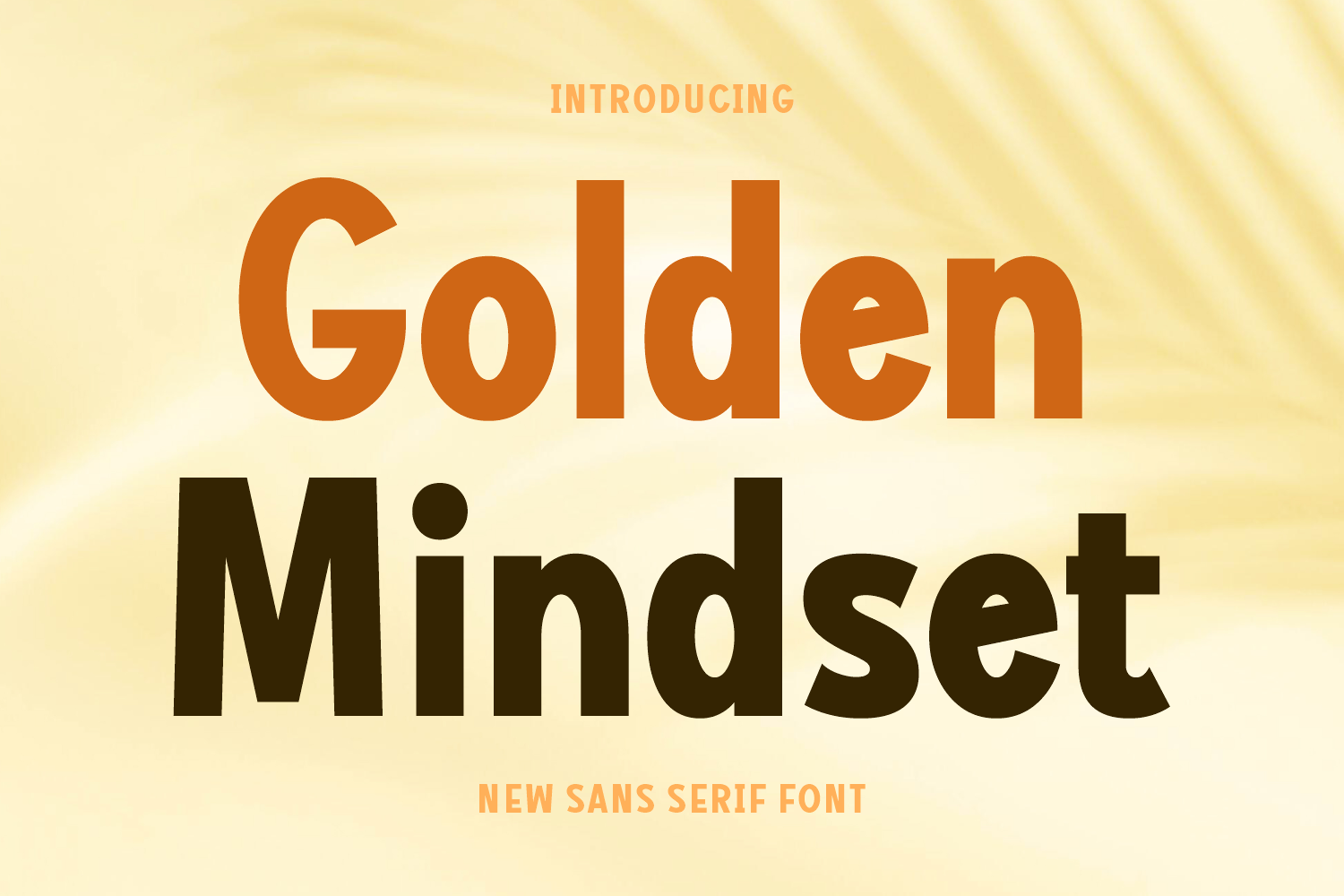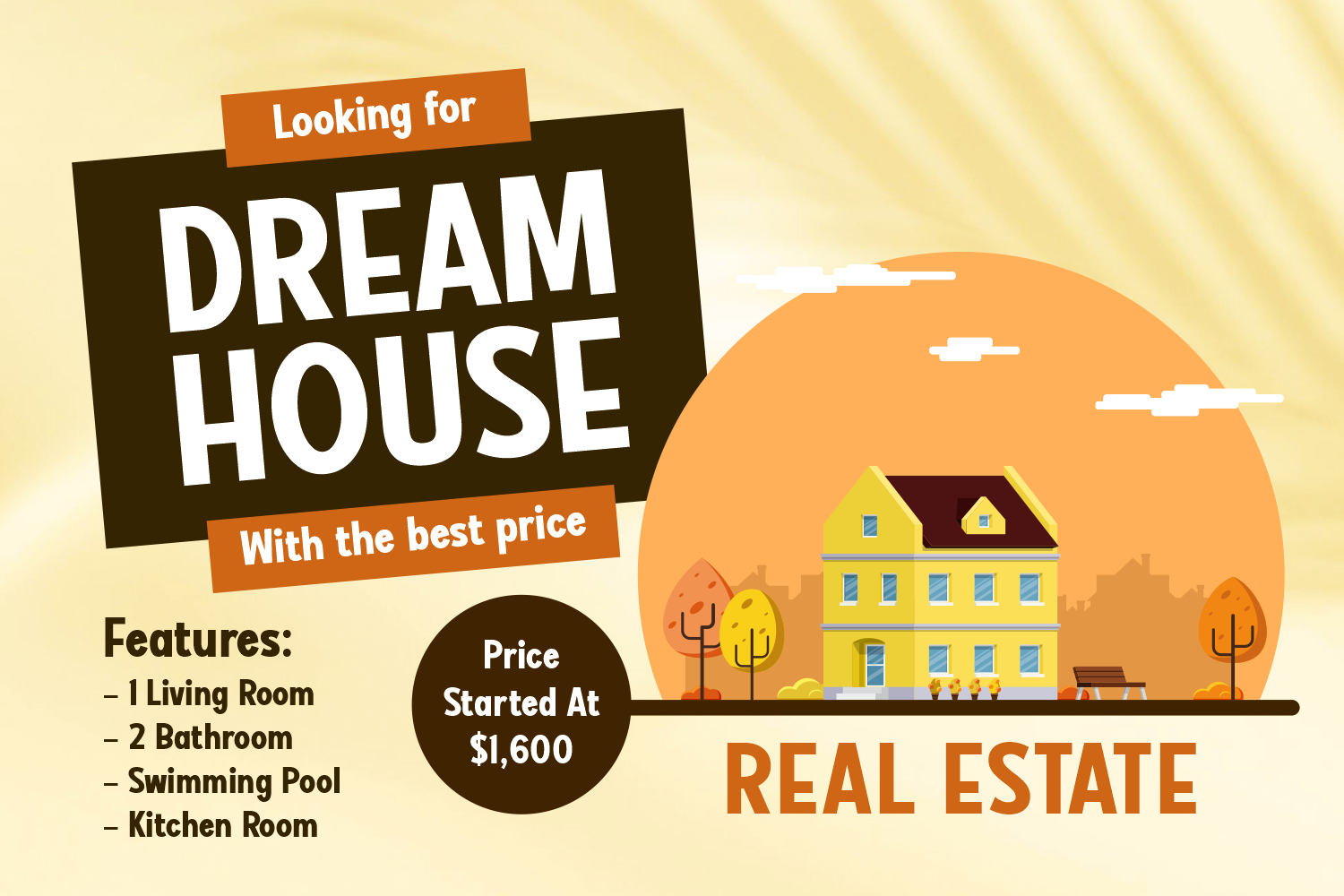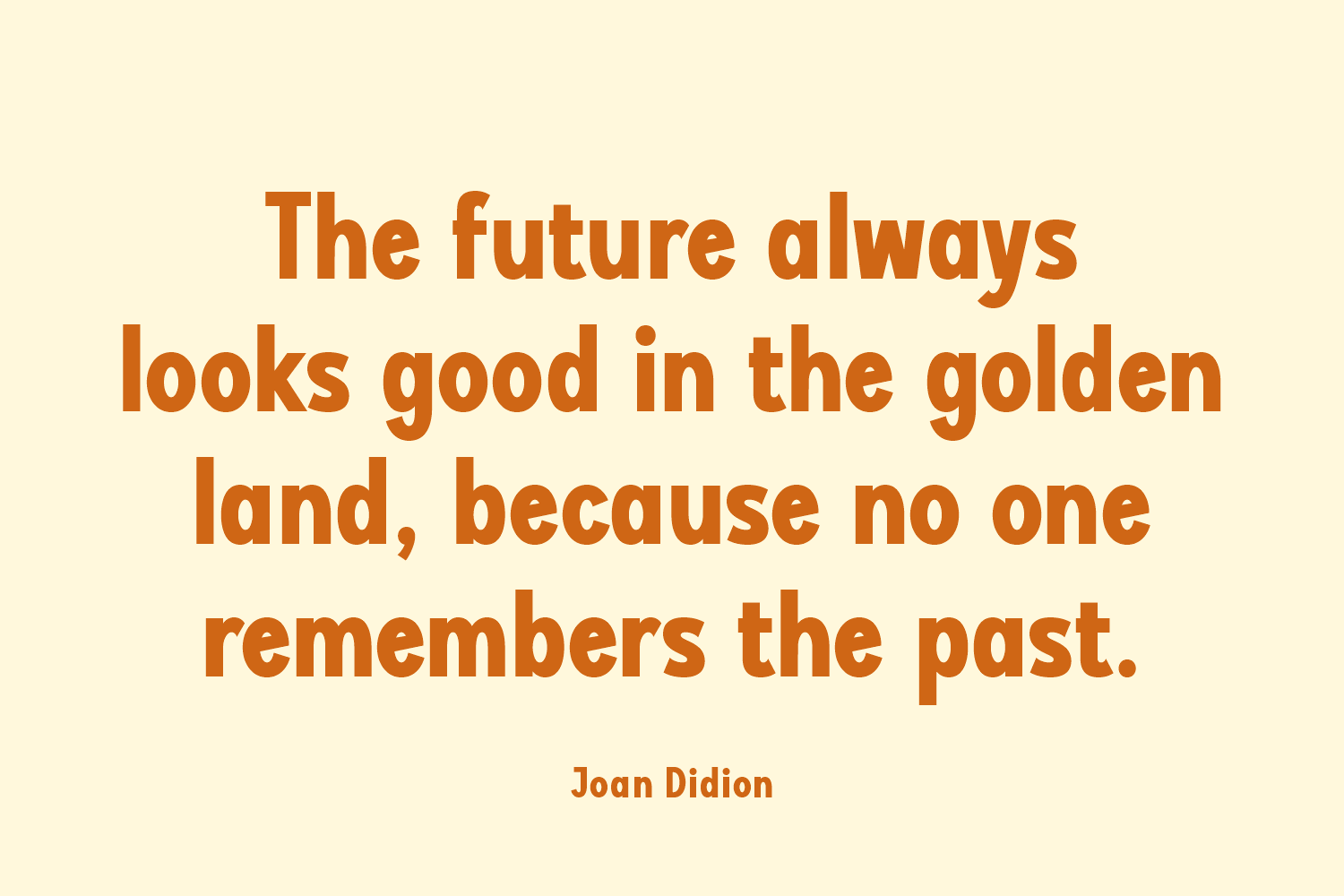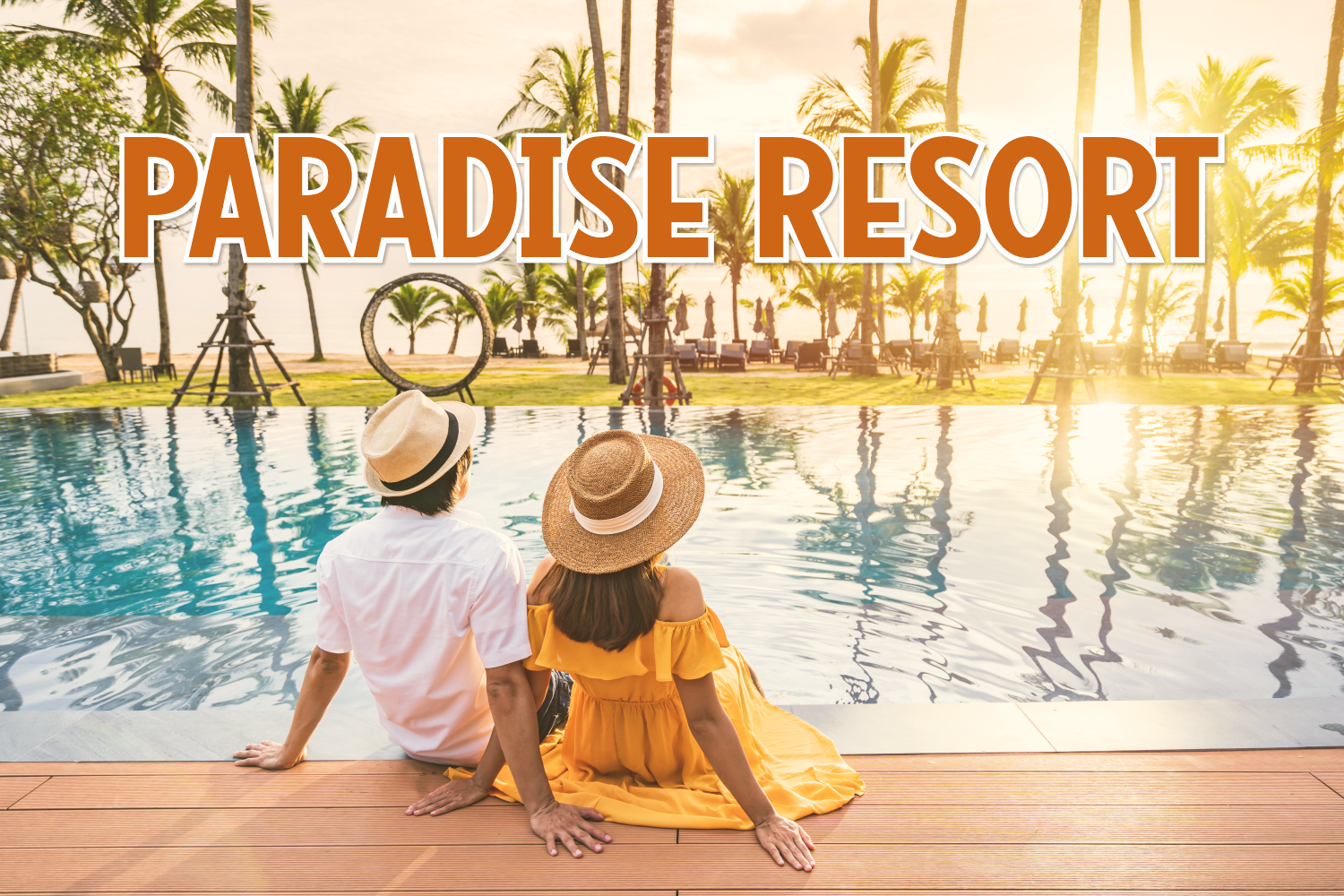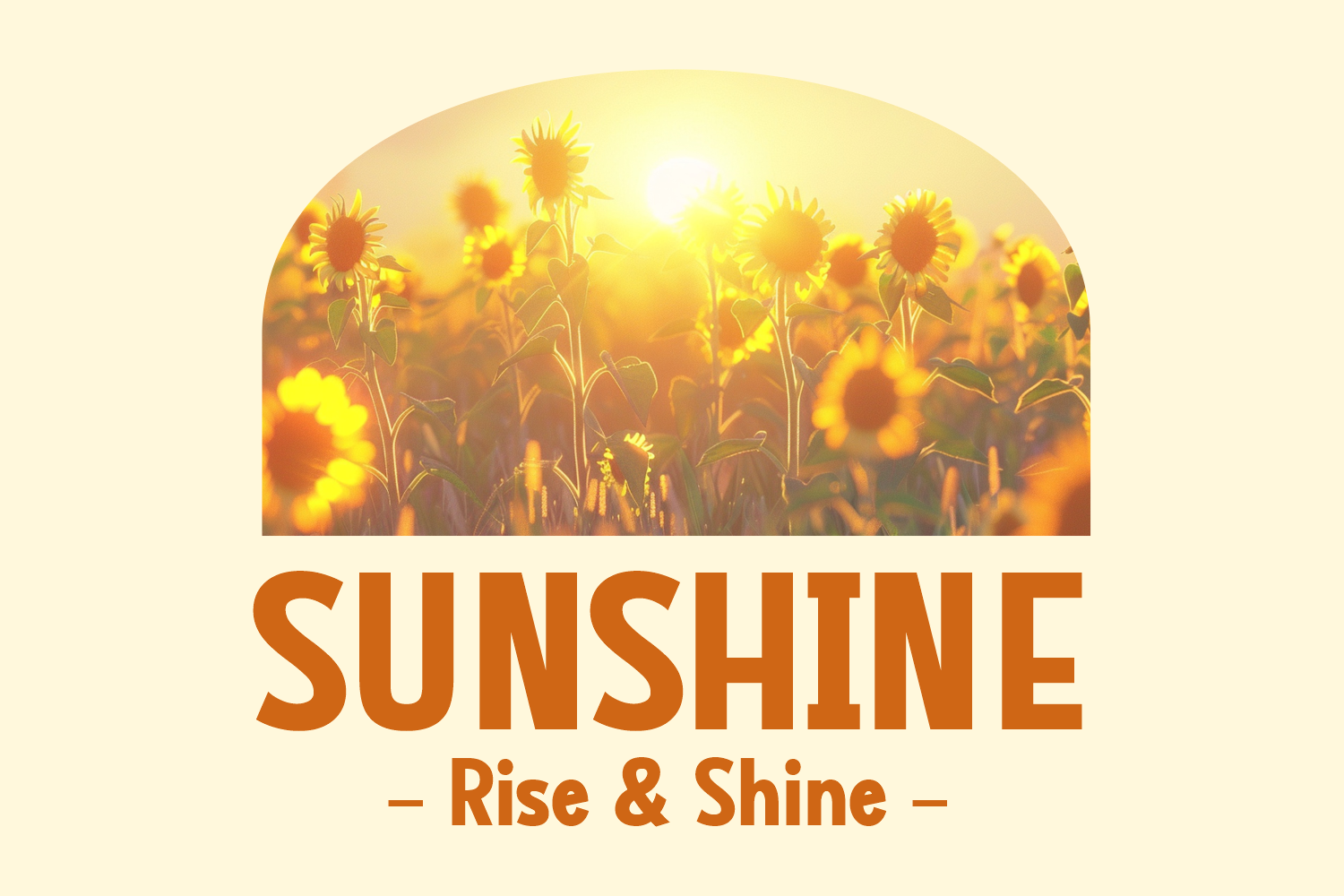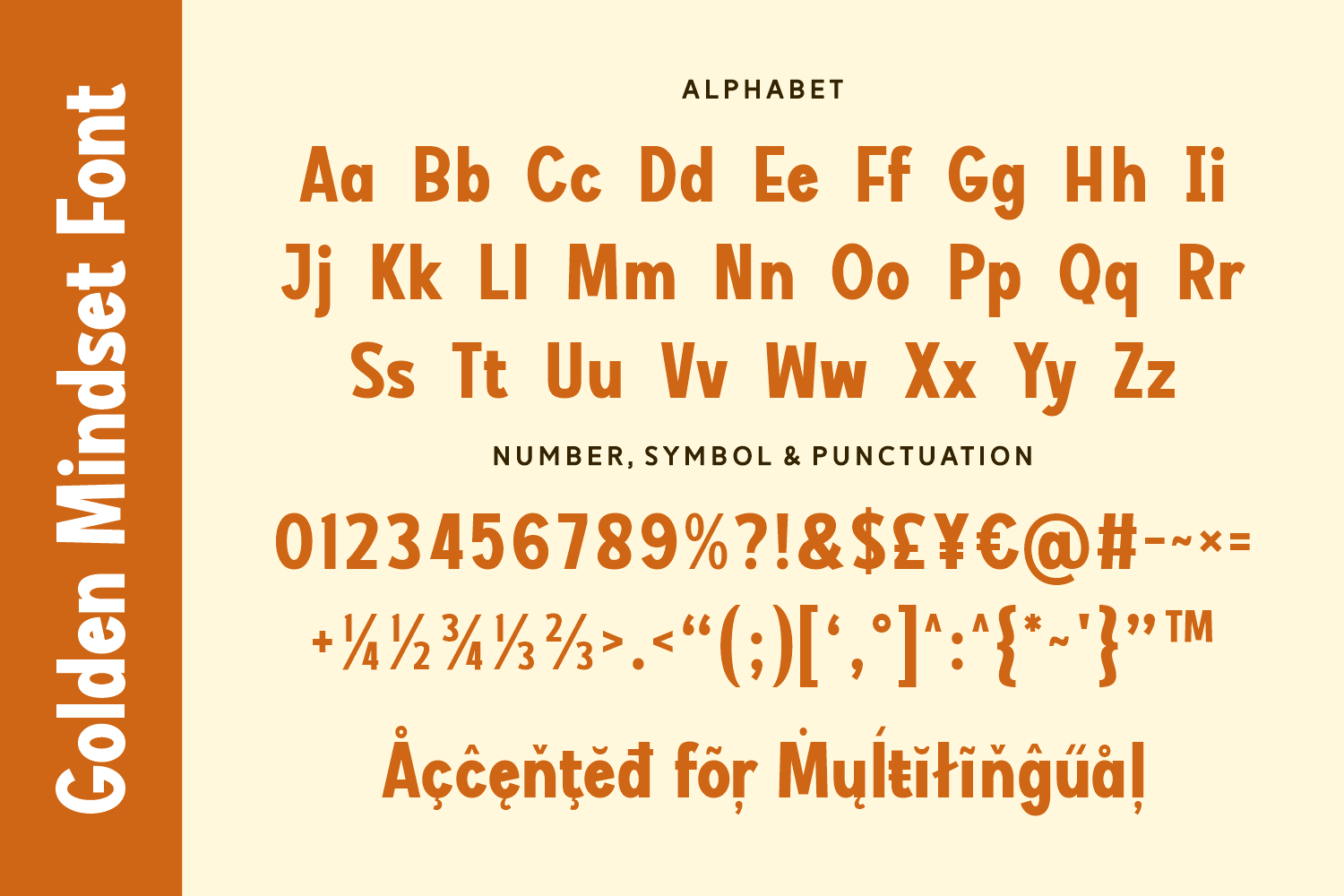
Golden Mindset
Golden Mindset is a modern sans serif typeface blending bold weight with clean simplicity. Its versatile design works beautifully for motivational posters, product packaging, and branding that demands a confident yet approachable tone.